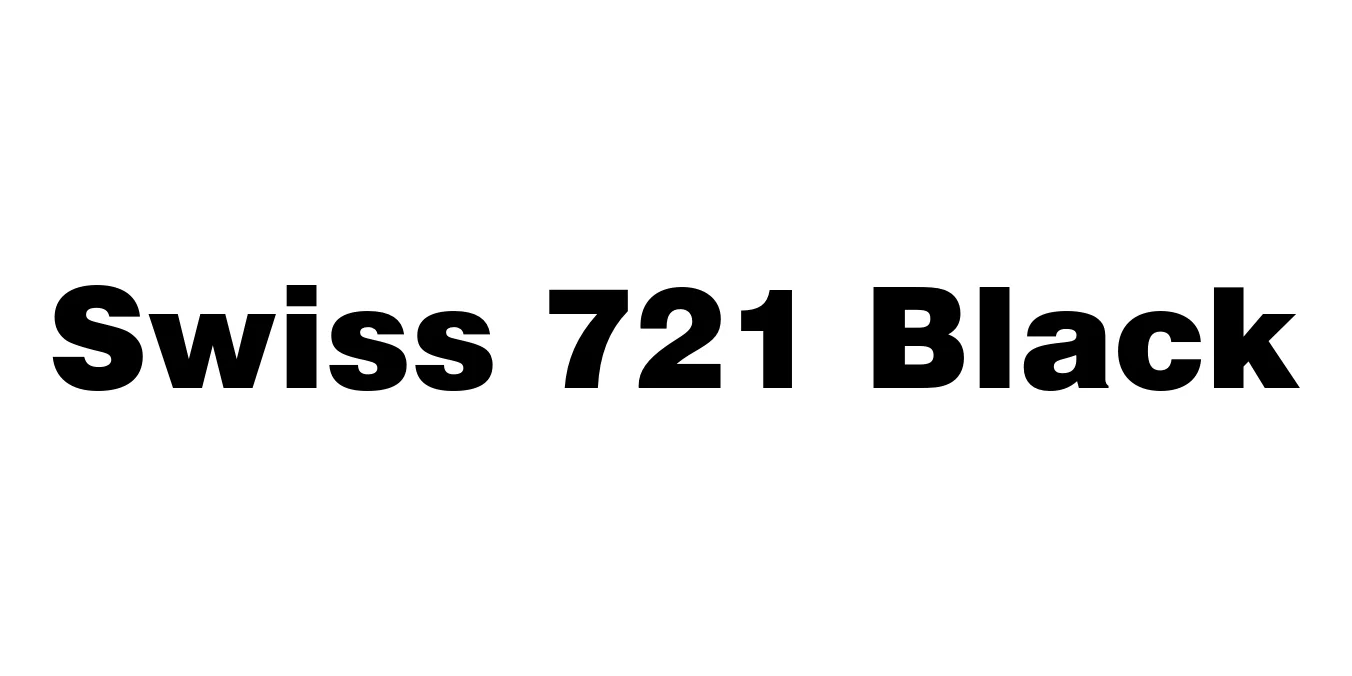
Swiss 721 Black
Designed by Bitstream
Swiss 721 is a comprehensive family of neo-grotesque sans-serif typefaces developed by the Bitstream foundry, based largely on the design principles of Helvetica. It was created to provide a versatile, clean, and objective aesthetic that embodies the International Typographic Style. The Black weight of this family is characterized by its significant thickness and power, making it a staple for designers who require a neutral yet authoritative voice in their compositions.
The typeface is renowned for its high legibility and balanced proportions, which allow it to function effectively in both digital and print environments. Because of its Swiss design heritage, it lacks any extraneous decorative elements, focusing instead on clarity and functionality. Swiss 721 Black is particularly effective for high-impact visual communication, ranging from corporate identity systems to large-scale architectural signage.
Swiss 721 Black Best Uses
Perfect for high-impact titles and large-scale posters.
Excellent for modern logo designs and professional corporate identities.
Grabs attention effectively in billboards and promotional print media.
Ideal for bold hero sections and clean landing page banners.